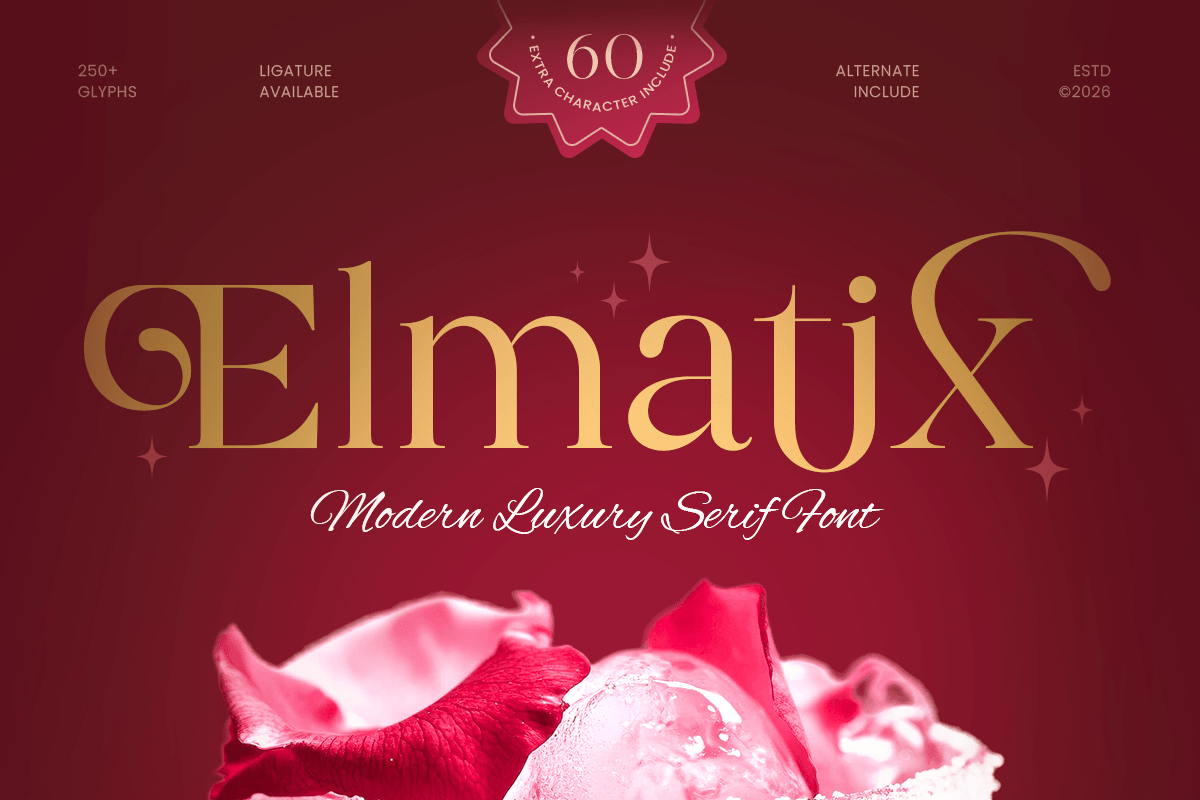
Elmatix
-Modern Luxury Serif FontElmatix - Modern Luxury Serif Font
Elmatix is a modern luxury serif font crafted to bring elegance, sophistication, and premium visual character to your creative projects. With refined serif details, graceful proportions, and a polished modern structure, this typeface is perfect for luxury branding, editorial layouts, fashion campaigns, packaging, and elegant logo design.
Designed for creators who want typography with timeless beauty and contemporary appeal, Elmatix blends classic serif charm with a modern luxury aesthetic. Its stylish letterforms help every logo, headline, invitation, and brand composition feel refined, exclusive, and visually memorable.
Whether used for fashion labels, beauty brands, boutique packaging, wedding stationery, lifestyle products, or premium marketing visuals, Elmatix delivers a sophisticated impression across both print and digital media.
Elmatix – Modern Luxury Serif Font Features
Modern luxury serif design with refined visual character
Perfect for branding, logos, editorials, and premium packaging
Elegant letterforms with stylish proportions and timeless appeal
Ideal for fashion, beauty, wedding, lifestyle, and boutique industries
OpenType features for enhanced typographic styling
Create timeless sophistication with Elmatix – the perfect modern luxury serif font for elegant branding, premium packaging, and refined editorial design. ✨